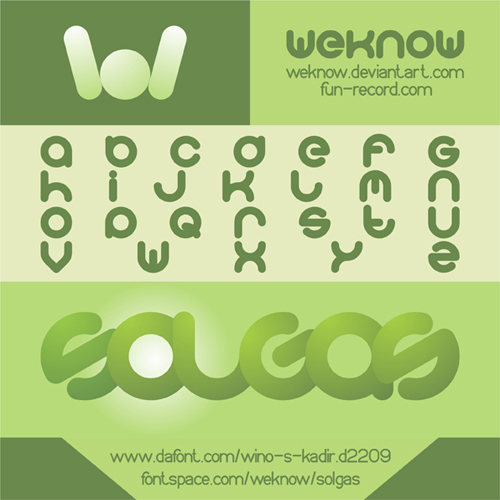
solgas_font_byweknow by *weknow is a curved shaped font which is perfect for any digital project. This is just one of many unusual fonts that this deviant has made available to the community. Thank you for sharing!
solgas font by weknow
i hope all of you like solgas font
you can make a text art, logotype, or what ever you like